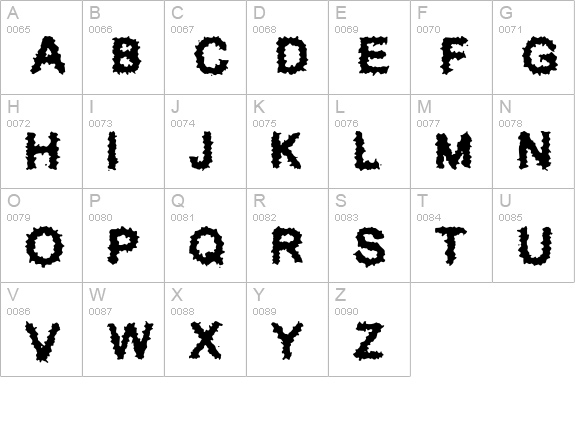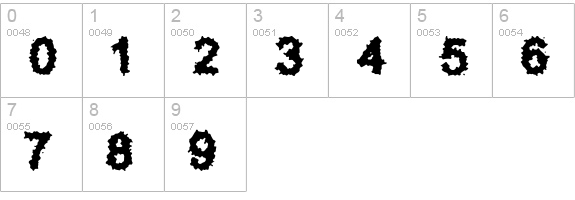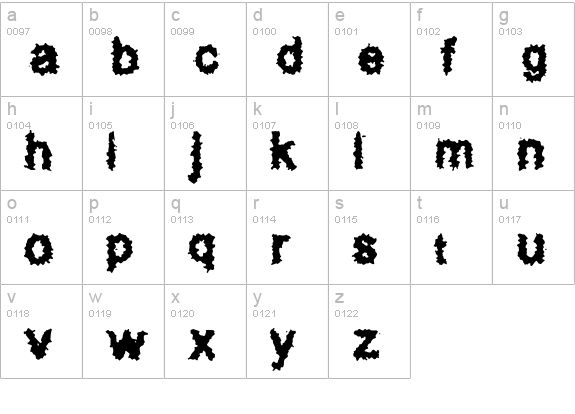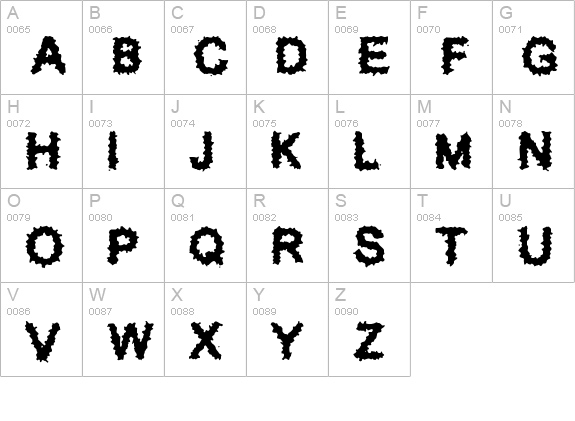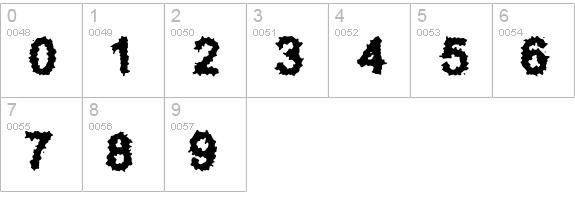
Splatz (BRK) Font Details
Splatz (BRK) is a vibrant and playful font that will inject a burst of energy into any design project. This font is the perfect choice for those seeking to add a touch of whimsy and creativity to their designs. With its bold and expressive letterforms, Splatz (BRK) is sure to make a statement. One of the best things about Splatz (BRK) is that it is completely free. Yes, you read that right! This incredible font is freely available to download at FontsMarket.com. Whether you are a professional designer or an aspiring artist, you can now enhance your creations with this unique and eye-catching font without spending a dime. Splatz (BRK) is a versatile font that can be used for a wide range of projects. From logos and branding materials to posters, invitations, and social media graphics, this font is a showstopper. Its dynamic and lively appearance will captivate your audience and leave a lasting impression. The quirky and irregular shapes of Splatz (BRK) give it a handmade and organic feel, making it the ideal choice for designs that want to stand out from the crowd. Its irregular lines and splattered details add a touch of spontaneity and excitement to any project. With its extensive character set, Splatz (BRK) supports multiple languages, making it accessible to designers from all around the world. Its legibility and distinctiveness remain intact, no matter the language or design application. So, why wait? Unleash your creativity and download Splatz (BRK) for free at FontsMarket.com. Add a splash of fun and playfulness to your designs with this incredible font that is bound to make an impact. Don't miss out on this fantastic opportunity to enhance your design toolkit without spending a penny. Get Splatz (BRK) today and let your imagination run wild!